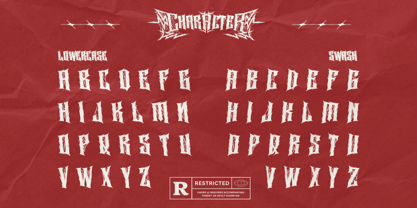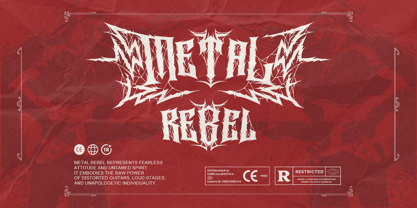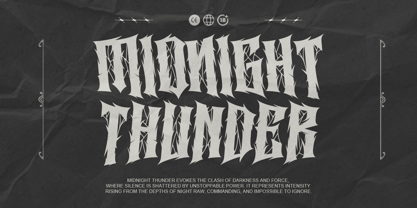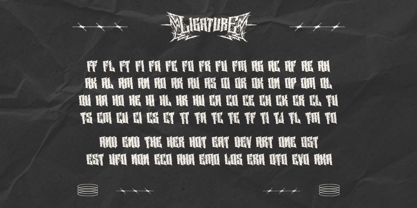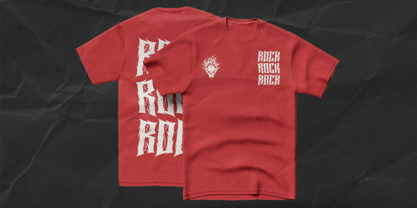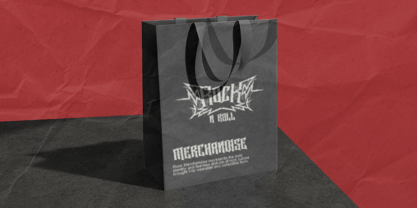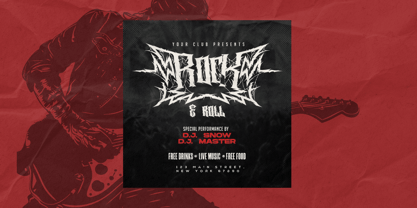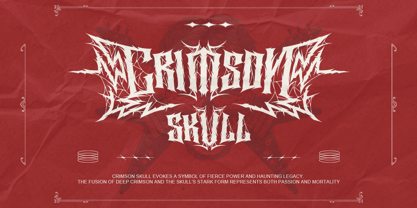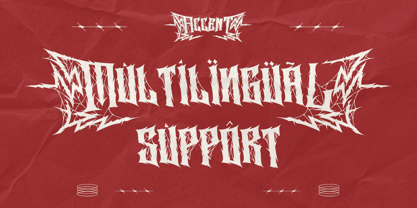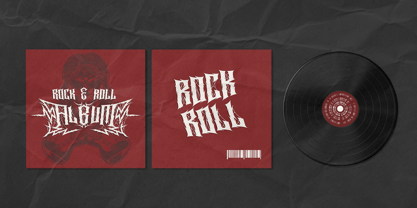
Ravok
Ravok is a brutal blackletter display font forged with raw metal energy and razor-sharp aggression. Inspired by underground heavy rock culture, extreme gig posters, and dark gothic aesthetics, Ravok delivers a commanding visual impact through its jagged strokes, spiked terminals, and chaotic yet controlled letterforms. Every character radiates intensity, making it perfect for album covers, band logos, merchandise, gaming titles, event posters, branding, and any design project that demands a loud, fearless, and rebellious presence.